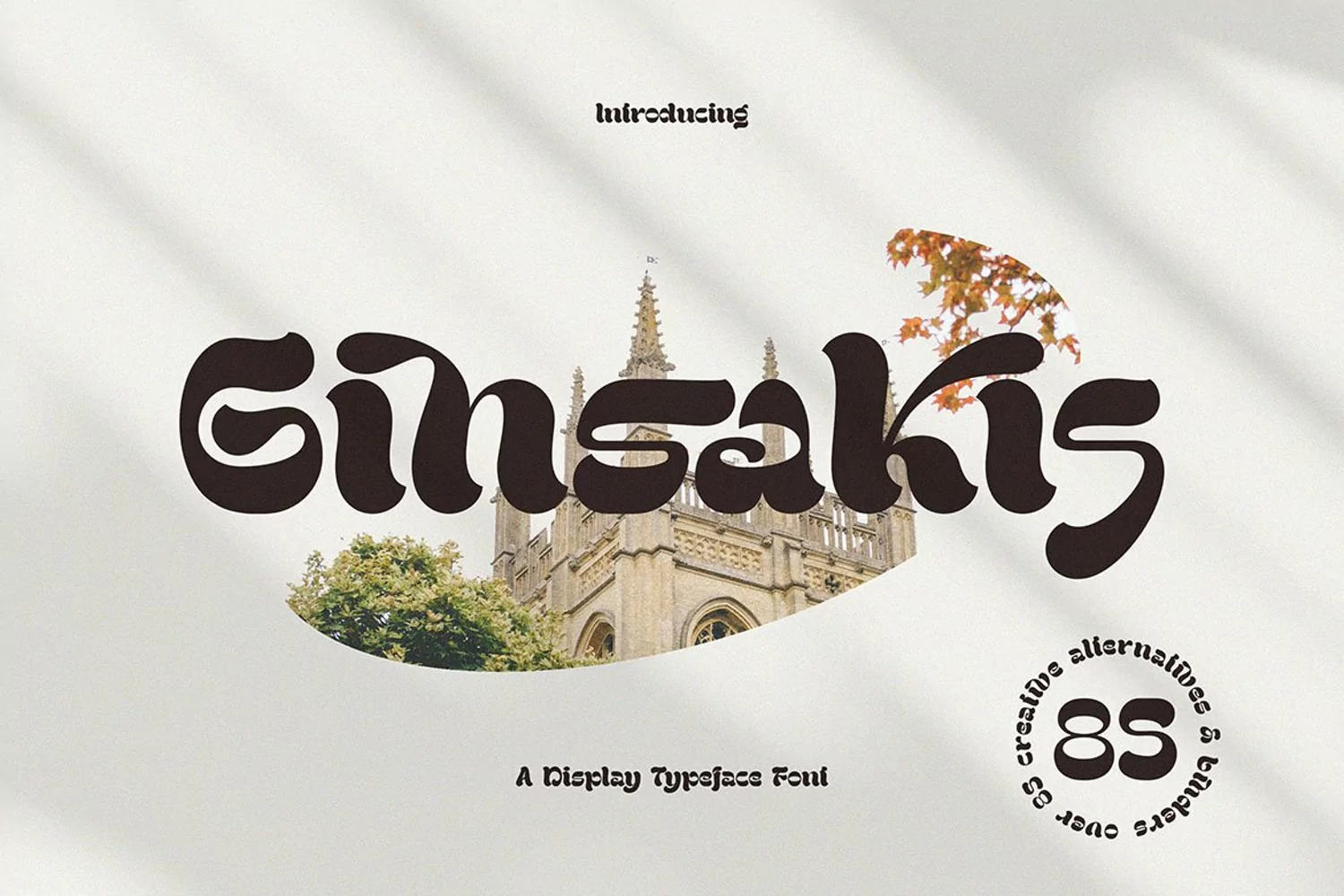
rendy, groovy, artistic & retro style font for your new modern projects. Elegant, artistic, quirky and funky style on Ginsakis font will be great for any branding project. Lot of alternates and ligatures will help you to create unique and original logo design or website header! Enjoy :)
-Multilingual support
-Alternate characters
-Lot of ligatures
-Great for modern branding projects!